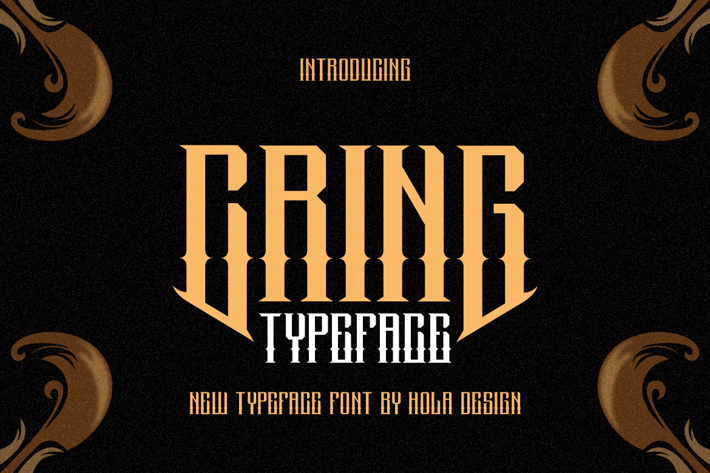
Cring Typeface - Decorative & Medieval Font
holadesignstd
Black Desgron Font is unique . Ready to use for your design like labeling, movie sceen, poster, movie title, gigs, album covers, logos, and much more.